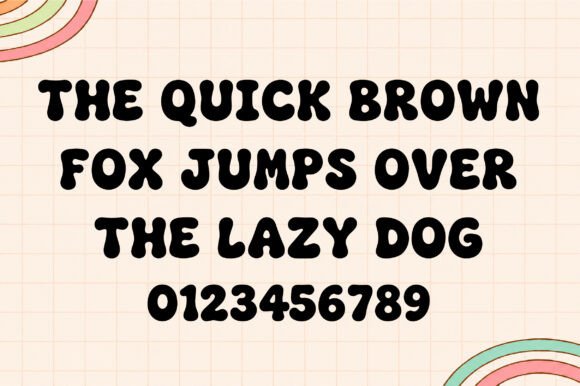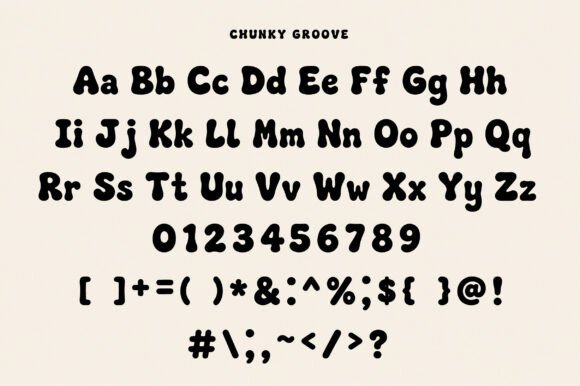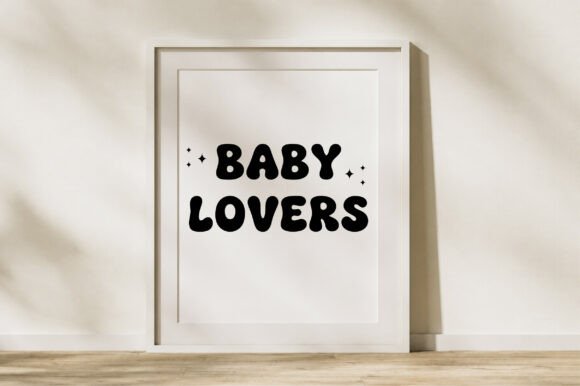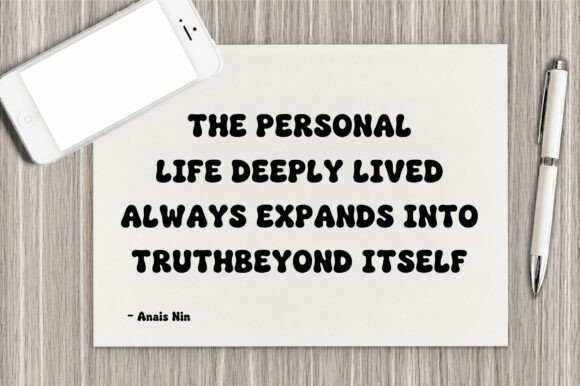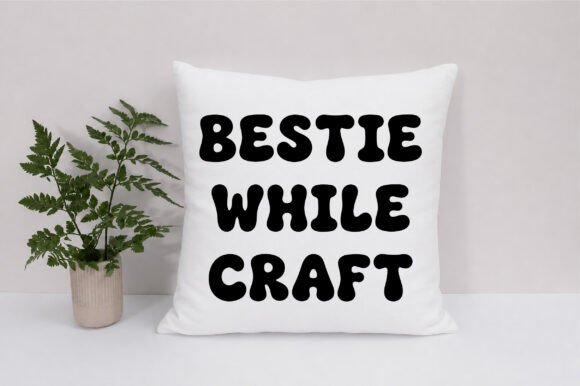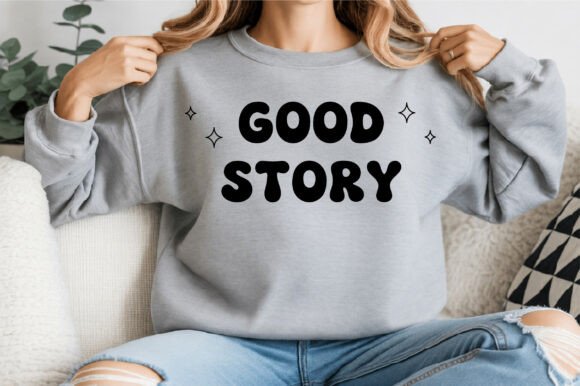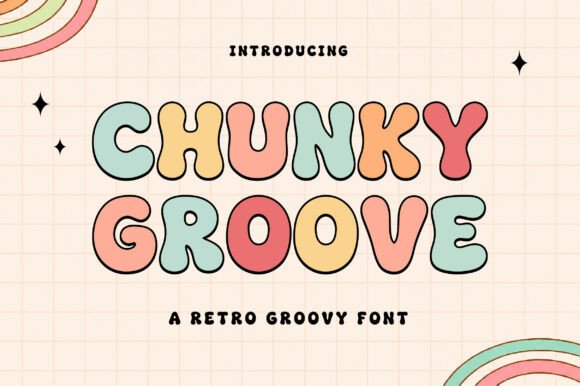
Introducing Chunky Groove Font: The Ultimate Retro Groovy Typeface
Are you ready to add a dash of nostalgia and playfulness to your designs? Look no further than Chunky Groove, a bold retro groovy font that’s perfect for creating eye-catching and cheerful designs. Inspired by classic 70s typography, Chunky Groove combines thick rounded letterforms, smooth curves, and a fun handmade feel to bring a vintage personality to your creative projects.
What Makes Chunky Groove Special?
Chunky Groove is more than just a font – it’s a design statement. With its chunky shapes and smooth curves, this font exudes a fun and playful vibe that’s perfect for a wide range of design applications. From posters and branding to t-shirts, stickers, logos, social media graphics, packaging, invitations, kids projects, and craft designs, Chunky Groove is the ultimate versatile typeface.
Key Features of Chunky Groove Font
- Bold and Chunky Letterforms: Chunky Groove features thick, rounded letterforms that are perfect for creating eye-catching designs.
- Retro Groovy Vibe: Inspired by classic 70s typography, this font brings a nostalgic aesthetic to your designs.
- Smooth Curves: The smooth curves of Chunky Groove add a touch of elegance and sophistication to its playful design.
- Fun Handmade Feel: The font’s handmade feel gives it a unique and personal touch that’s perfect for crafty designs.
- Clean and Readable: Despite its bold and chunky design, Chunky Groove remains clean and readable, making it perfect for both print and digital creative projects.
- Versatile: Use Chunky Groove for a wide range of design applications, from posters and branding to t-shirts, stickers, and more.
Chunky Groove is a designer’s dream come true. Its unique combination of bold and playful design elements makes it perfect for creating eye-catching designs that stand out from the crowd. Whether you’re a professional designer or a crafter looking for a fun and creative way to express yourself, Chunky Groove is the perfect choice.
Use Cases for Chunky Groove Font
- Posters and Flyers: Create eye-catching posters and flyers that grab attention with Chunky Groove.
- Branding and Logo Design: Use Chunky Groove to create bold and playful brand identities that make a statement.
- T-Shirts and Apparel: Design fun and playful t-shirts and apparel with Chunky Groove.
- Stickers and Labels: Create colorful and eye-catching stickers and labels with Chunky Groove.
- Social Media Graphics: Use Chunky Groove to create engaging and playful social media graphics that stand out.
- Packaging and Invitations: Add a touch of personality to your packaging and invitations with Chunky Groove.
- Kids Projects and Craft Designs: Use Chunky Groove to create fun and playful designs for kids projects and craft designs.
In conclusion, Chunky Groove is a unique and versatile font that’s perfect for designers and crafters looking to add a touch of nostalgia and playfulness to their designs. With its bold and chunky letterforms, smooth curves, and fun handmade feel, Chunky Groove is the ultimate retro groovy typeface. Whether you’re creating posters, branding, t-shirts, stickers, or more, Chunky Groove is the perfect choice.